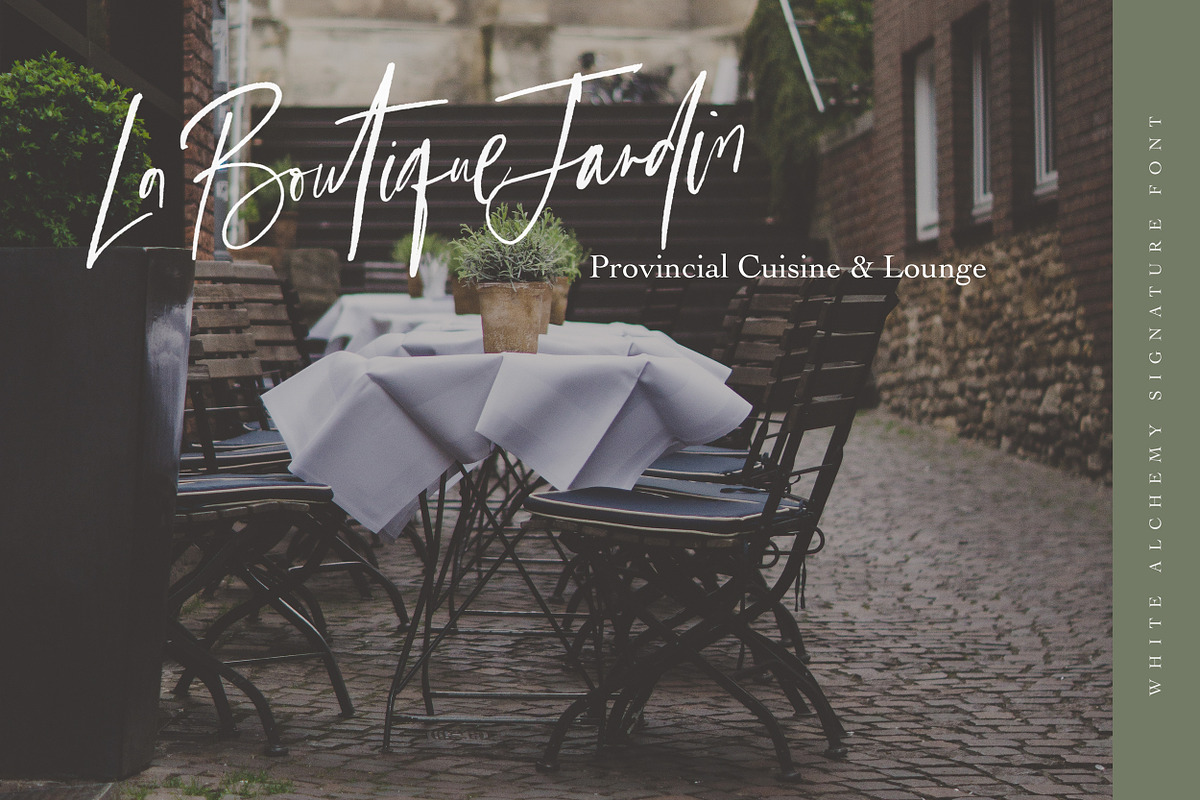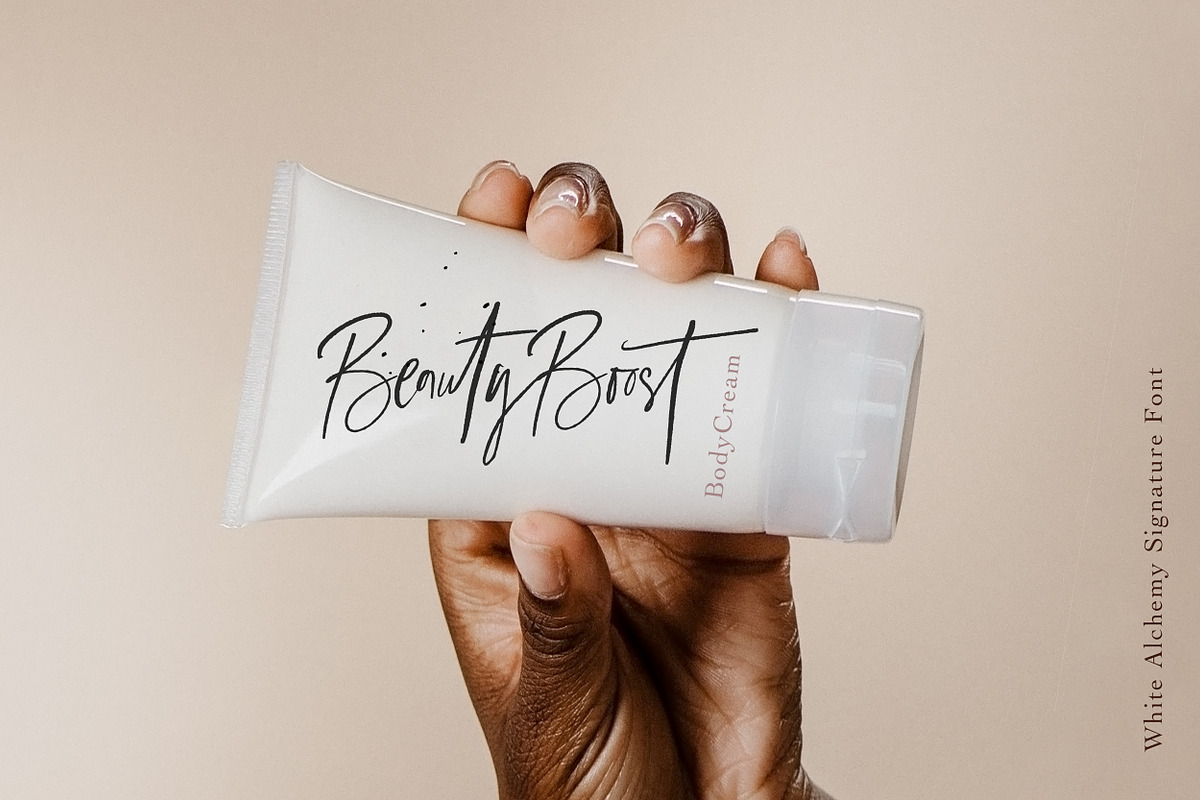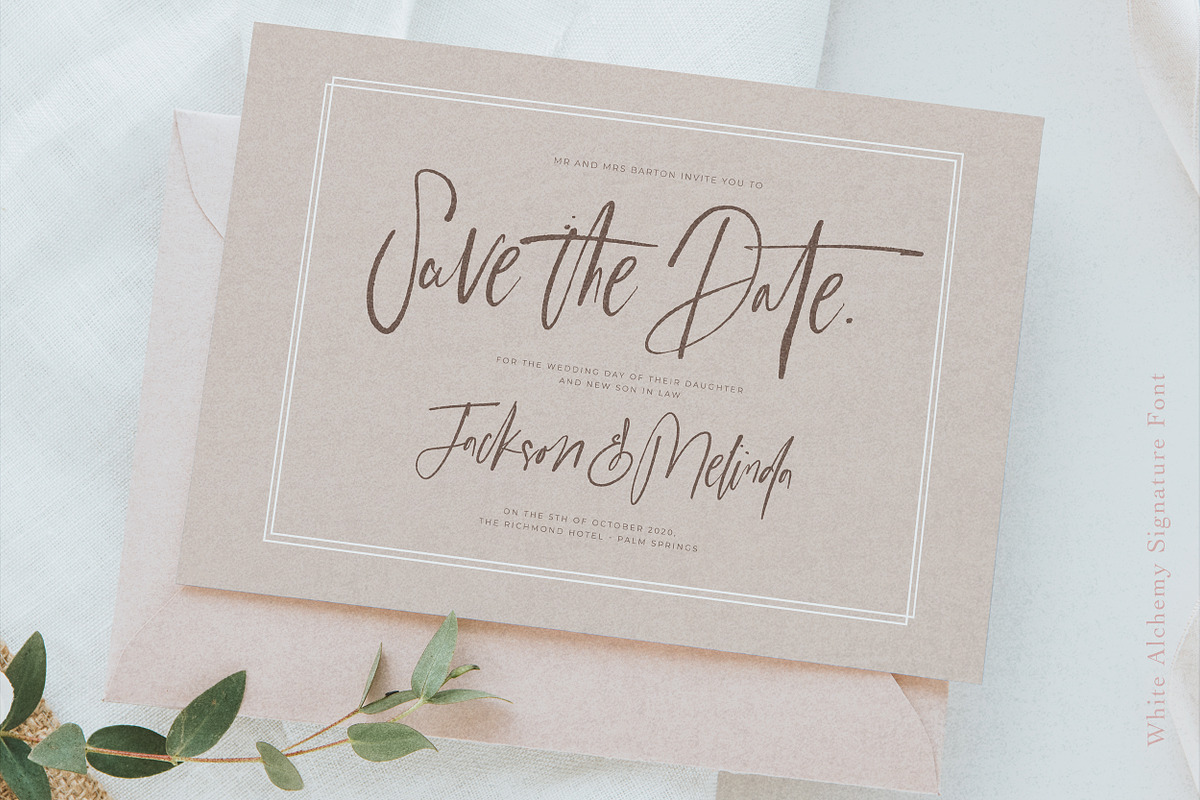
White Alchemy is a wildly flamboyant signature script, designed to stand out from the crowd. Inky fountain pen imperfections and an avant-garde attitude make it perfect for a completely natural and unique brand look.
A large selection of Opentype ligatures and character alternates add to its natural flow and look. Make sure your Opentype features are active in whichever app you use to type with it, to see this font at it’s best.